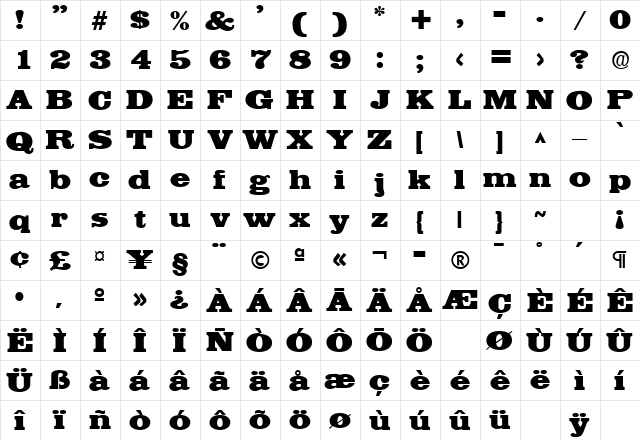
MsSprattSSK Regular
Design Context for MsSprattSSK Typeface
MsSprattSSK is a composed and adaptable typeface that performs quietly and consistently across a wide range of design contexts.